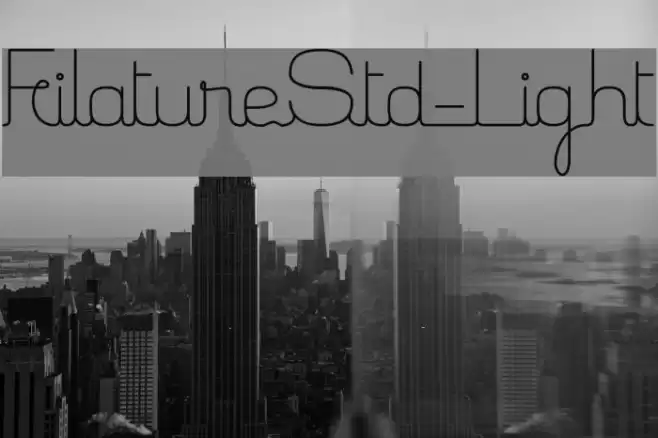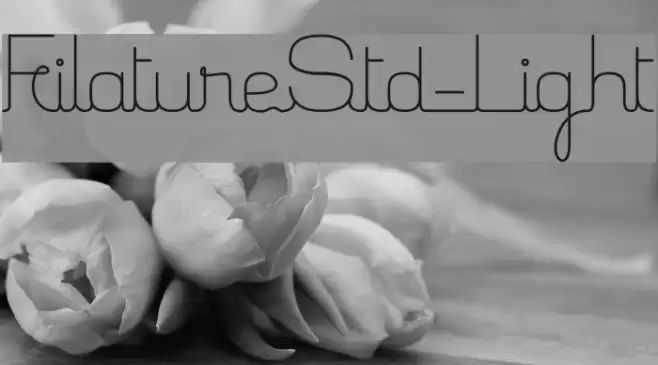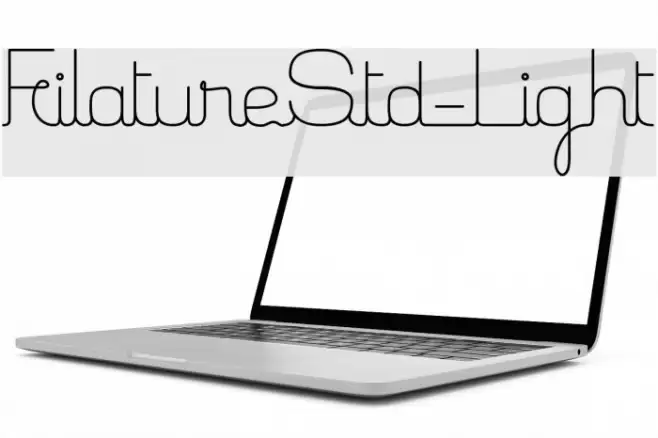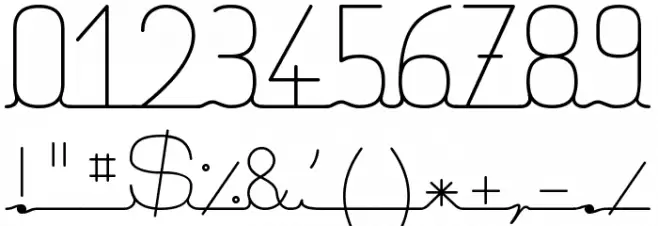
FilatureStd-Light Font
FilatureStd-Light Description
This font features a unique, continuous line style that gives it a modern and artistic appearance. The characters are formed with a single, unbroken line, creating a sense of fluidity and elegance. The uppercase letters maintain a consistent height, while the lowercase letters exhibit a playful looped design, particularly noticeable in characters like 'g' and 'j'. The numerals are distinct, with a similar continuous line approach, ensuring readability while maintaining the font's artistic flair. Special characters are also included, following the same design principles, making this font versatile for various applications.
A modern, continuous line font with a fluid and artistic style from Uncategorized fonts.